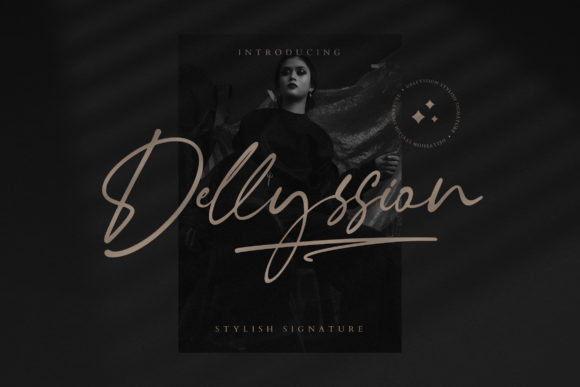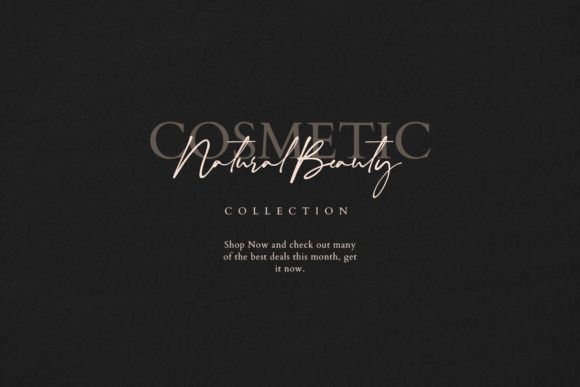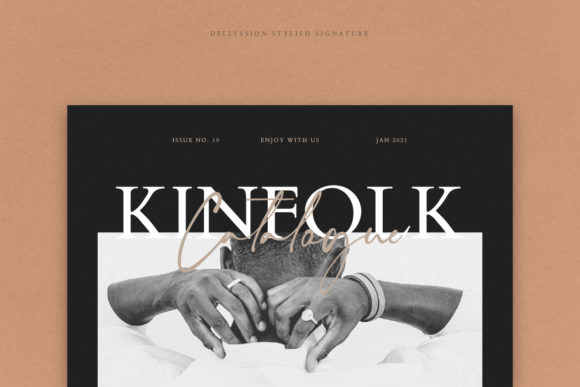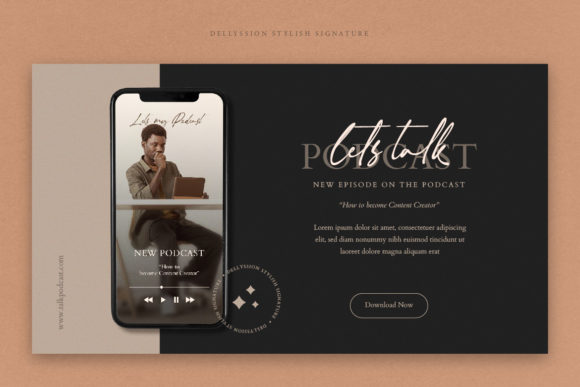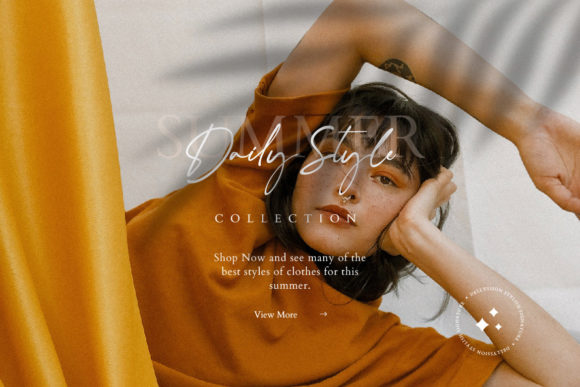
About Dellyssion Font
Dellyssion is a lovely and fashionable handwritten font. It is the best choice for creating eye catching logos, branding and quotes. Dellyssion is PUA encoded which means you can access all of the glyphs and swashes with ease!